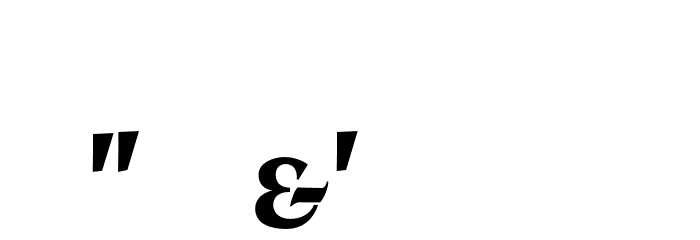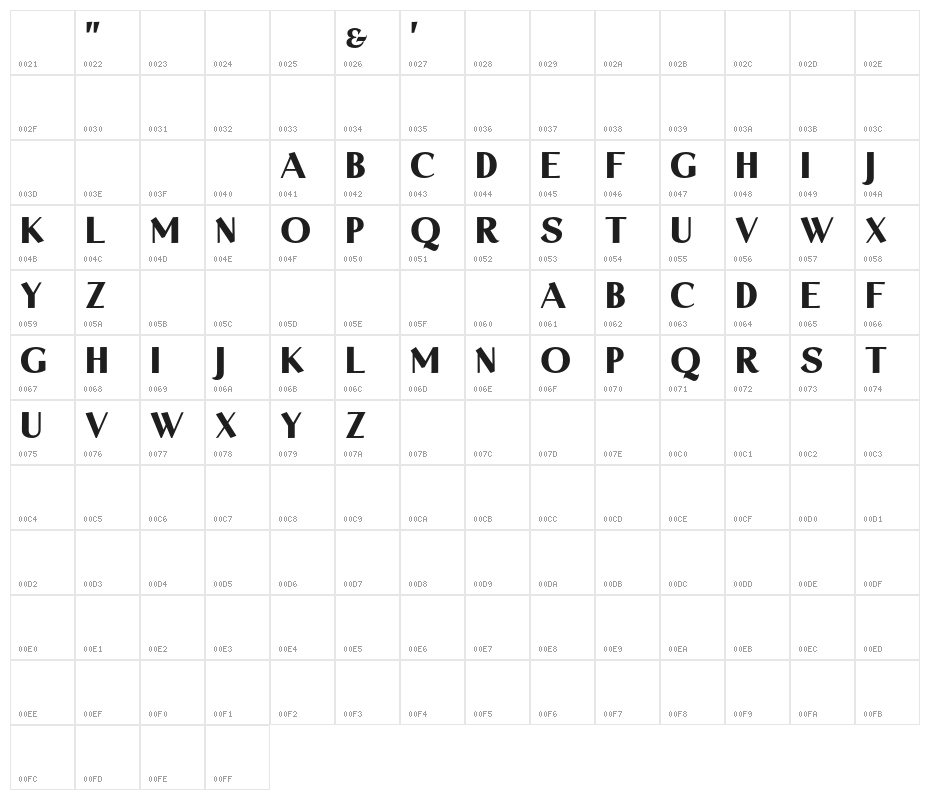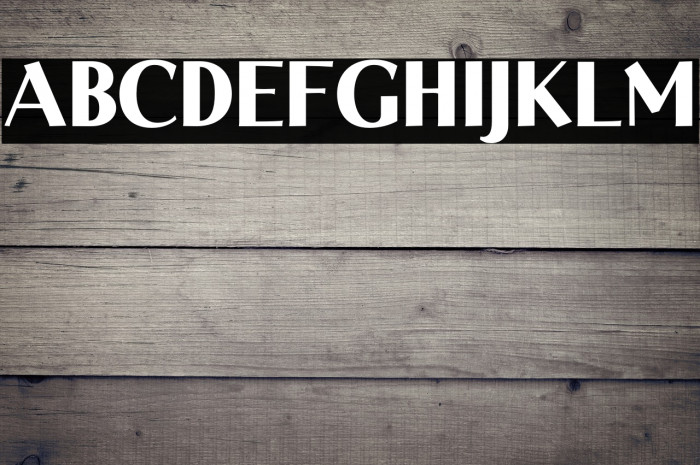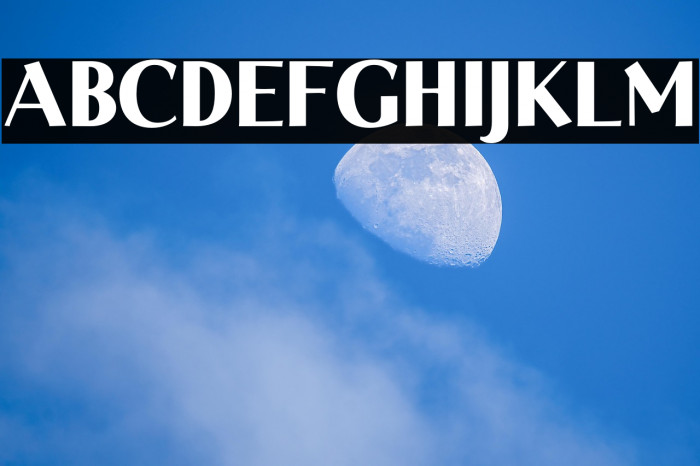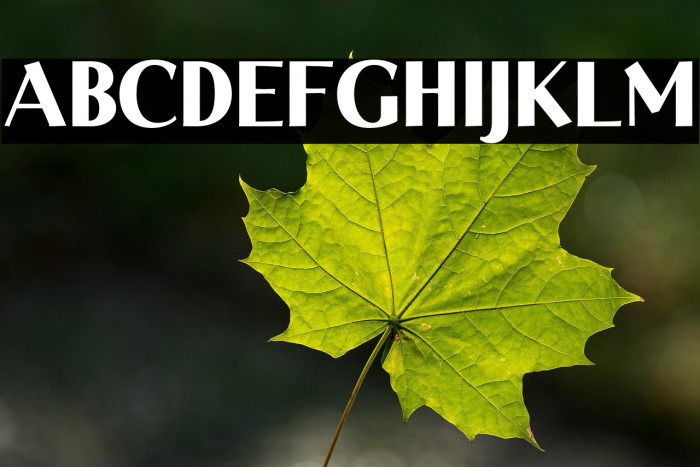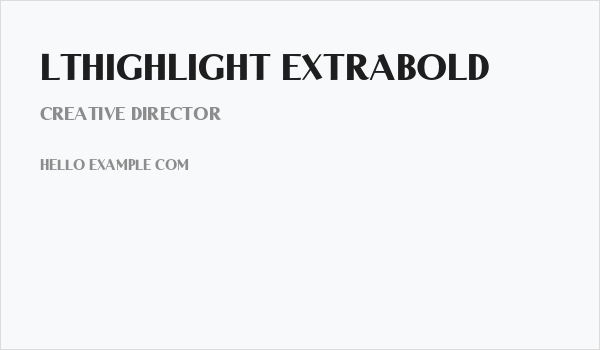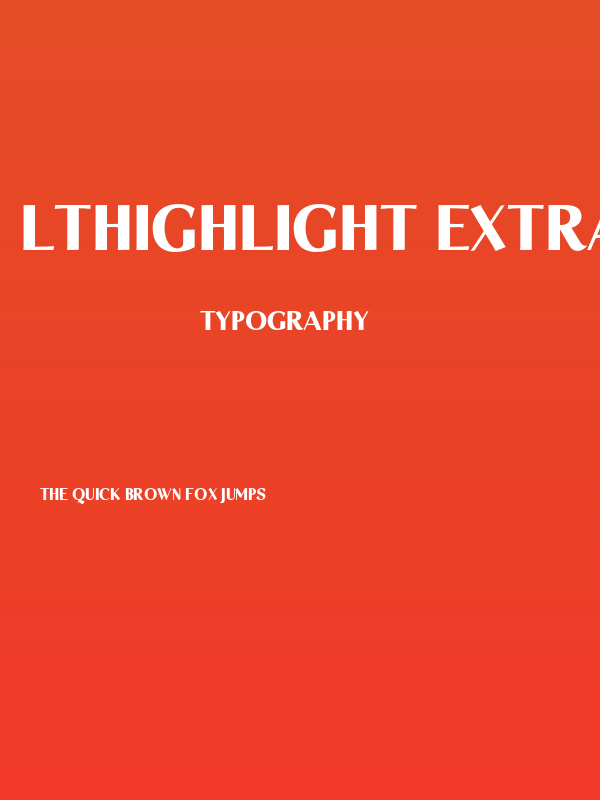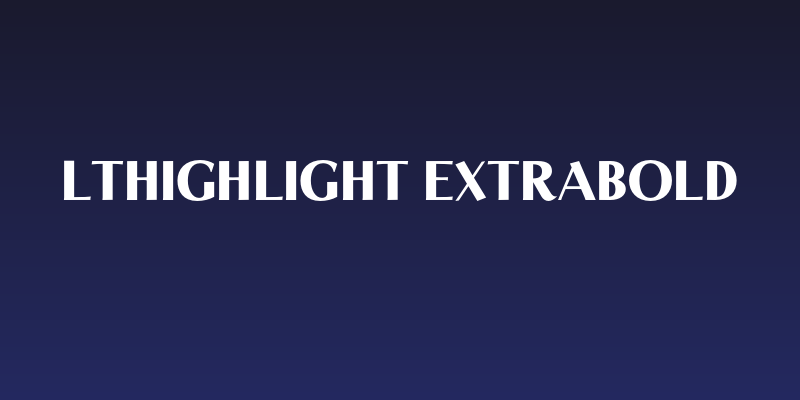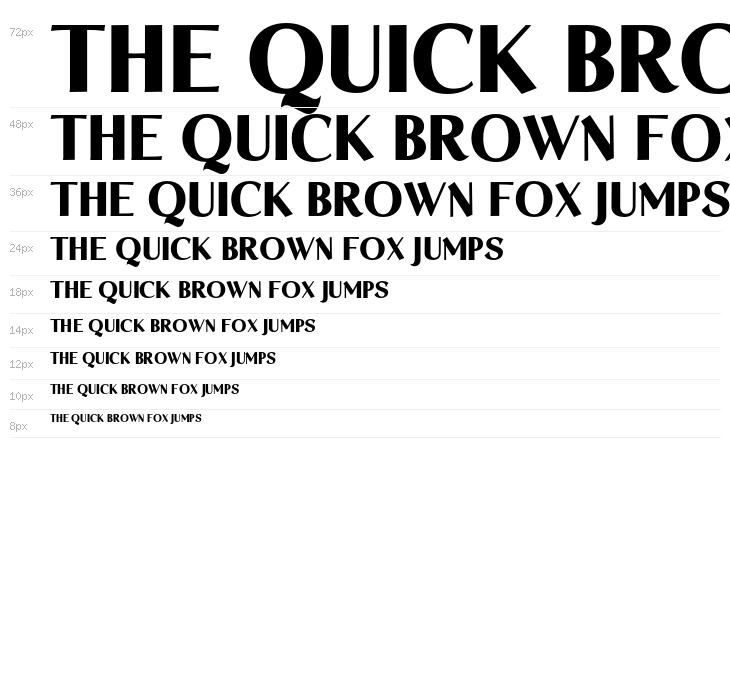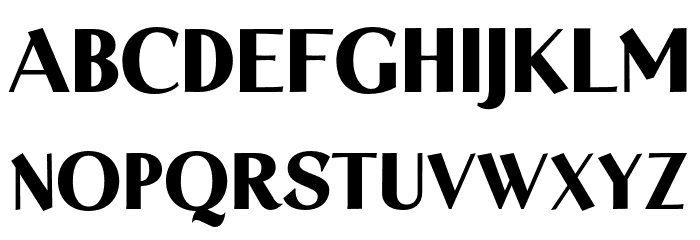
LTHighlight-ExtraBold Font
LTHighlight-ExtraBold Description
This font features a bold and striking design with a strong presence. The characters are sharply defined with a high contrast between thick and thin strokes, giving it a dramatic and impactful appearance. The serifs are pronounced, adding a touch of elegance and sophistication. The uppercase letters are particularly commanding, making them ideal for headlines or titles. The overall style is modern yet retains a classic feel, making it versatile for various design applications. The spacing between characters is tight, enhancing the boldness and readability of the text.